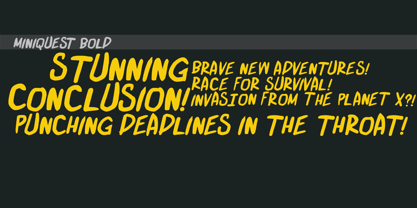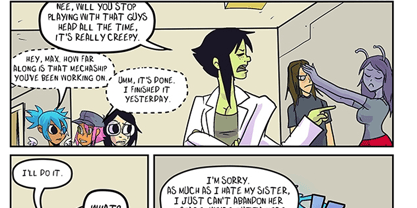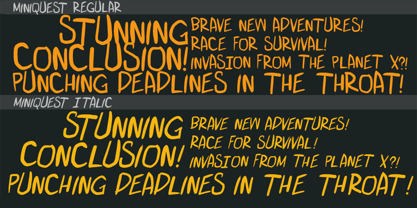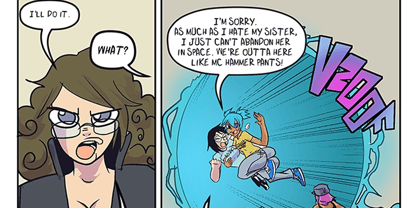
Miniquest
by PressGang Studios
The Miniquest Font Family was designed by Andeh Pinkard and published by PressGang Studios. Miniquest contains 3 styles and family package options. More about this family
The side-adventure of a lifetime in just thirty minutes!
meant to capture that fun feeling of an indie adventure comic. went fore something rough but still clean enough to not seem like chicken scratches .